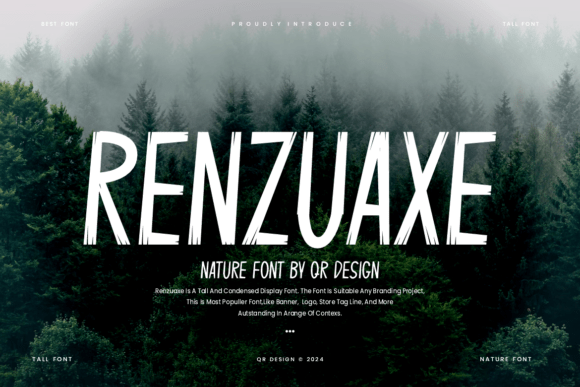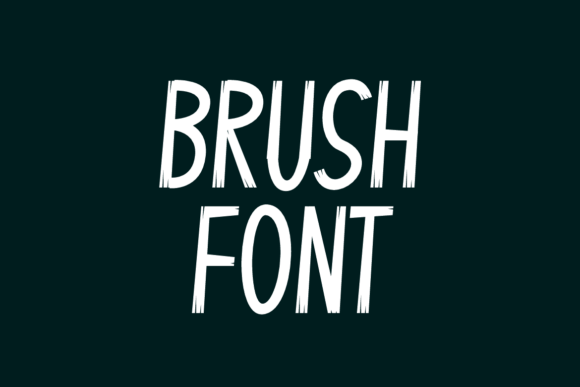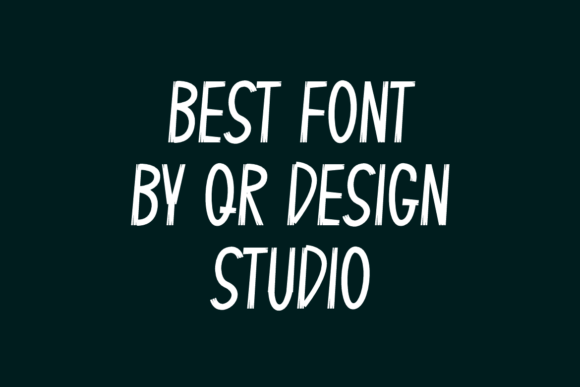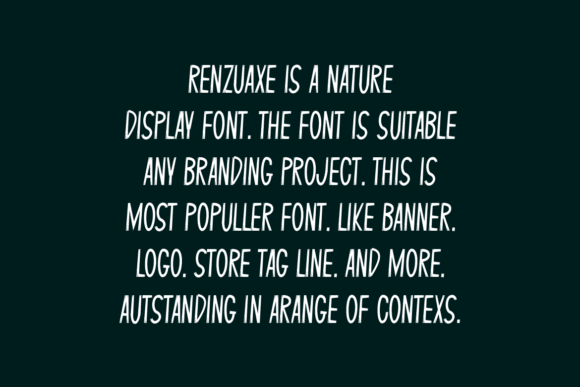
Renzuaxe Font
About the Renzuaxe Font
Explore the possibilities with Renzuaxe Font, a font that offers both beauty and functionality. Renzuaxe is an incredibly cool and unique font. It has a modern yet whimsical style and it will undoubtedly immerse your designs into a magical world.
Renzuaxe’s modern whimsicality makes it ideal for headlines, branding projects needing a touch of playful sophistication, and short-form content like posters or social media graphics. Its unique character, however, makes it less suitable for body text or UI elements requiring high readability over extended lengths.
The font’s core personality is bold and playful, yet refined. It projects a sense of modern energy and creativity. Brands targeting a younger, more design-conscious audience would find it particularly effective.
Consider pairing Renzuaxe with a clean sans-serif like Lato for a balanced contrast, or a more geometric sans-serif for a contemporary feel. A classic serif font like Garamond could also work well, providing a sophisticated counterpoint to Renzuaxe’s playful strokes.
Renzuaxe Font Usage Examples
Renzuaxe Font Example